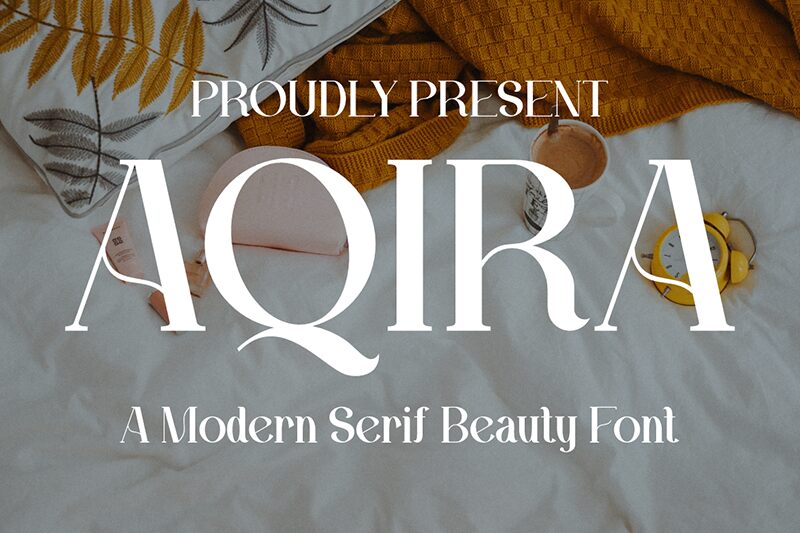
AQIRA
Aqira font by Gilang Ternadho is an elegant and sophisticated serif typeface that combines a classic style with a modern twist. Although the general appearance of the style is not altered, new details are given to contribute to an unexpected overall touch. With balanced proportions, this font aims to capture both legibility and uniqueness.
Use Aqira for logos, websites, digital ads (including social media), book covers, invitation cards, posters or flyers. While this free serif font can perform extremely well in printed form and large sizes or small weight fonts in general – it holds up equally well on screen.